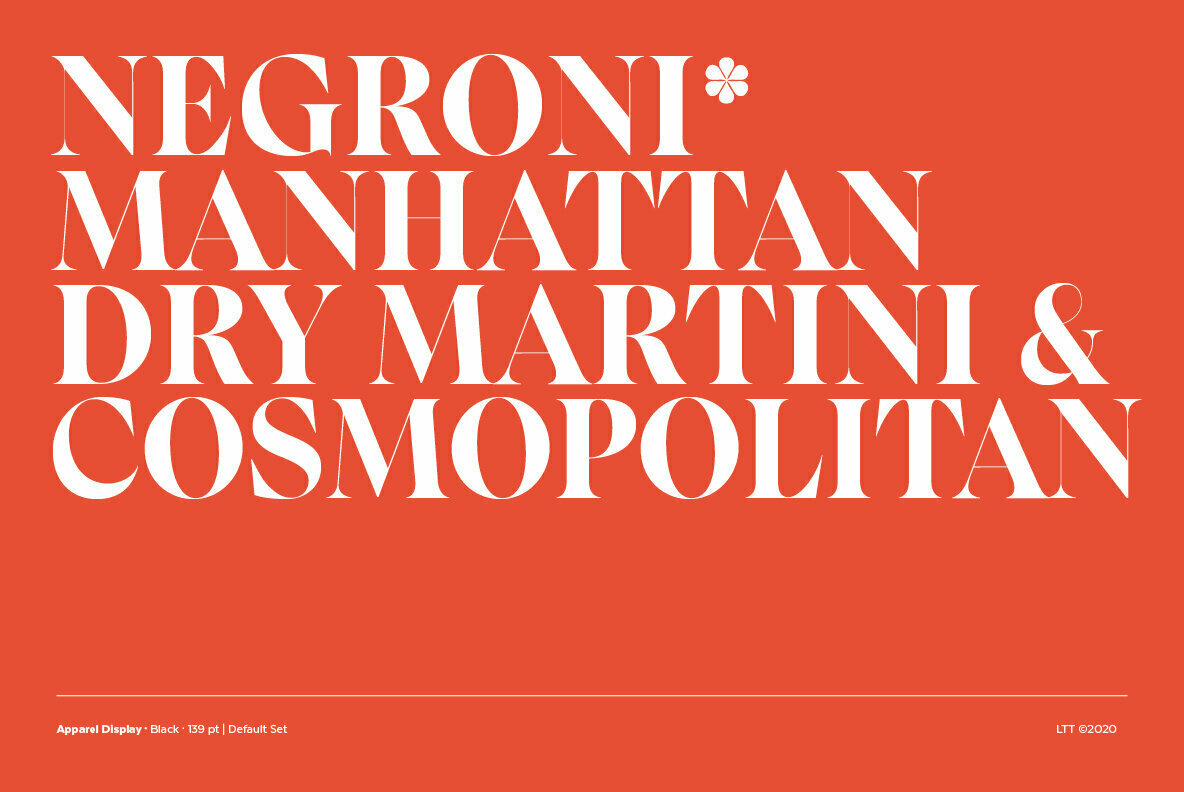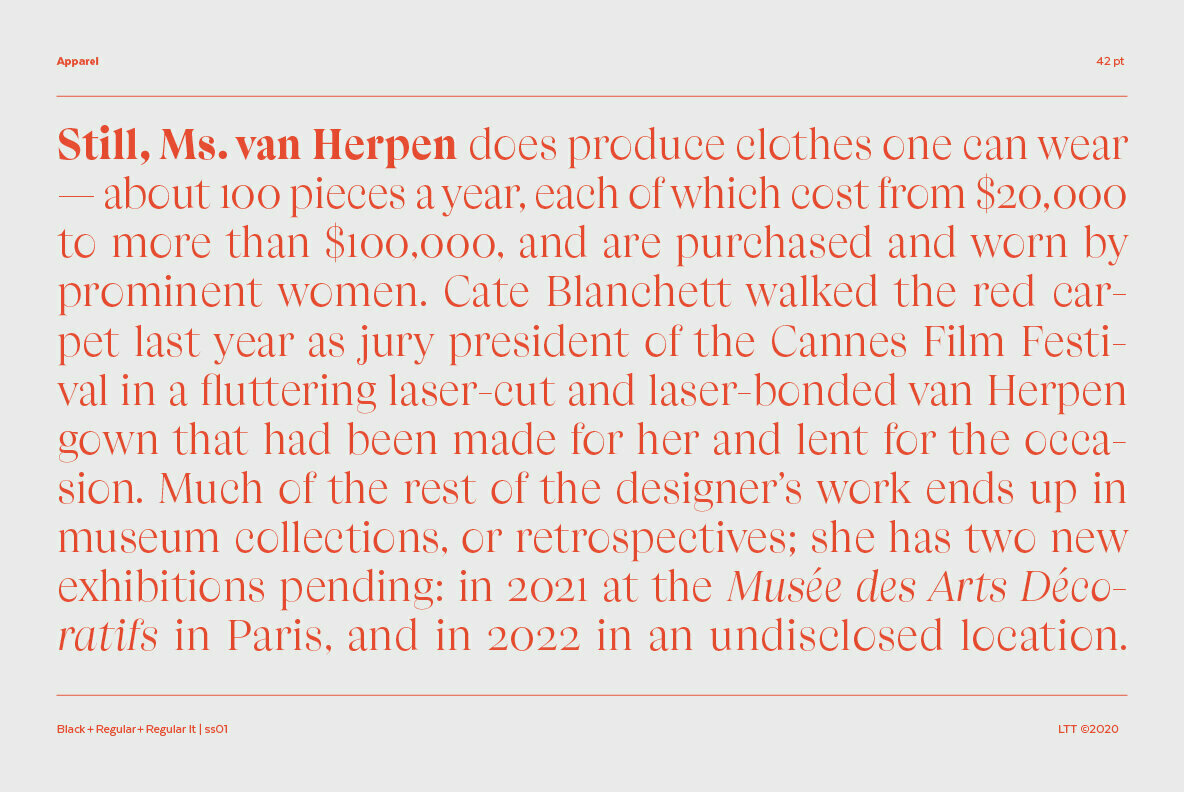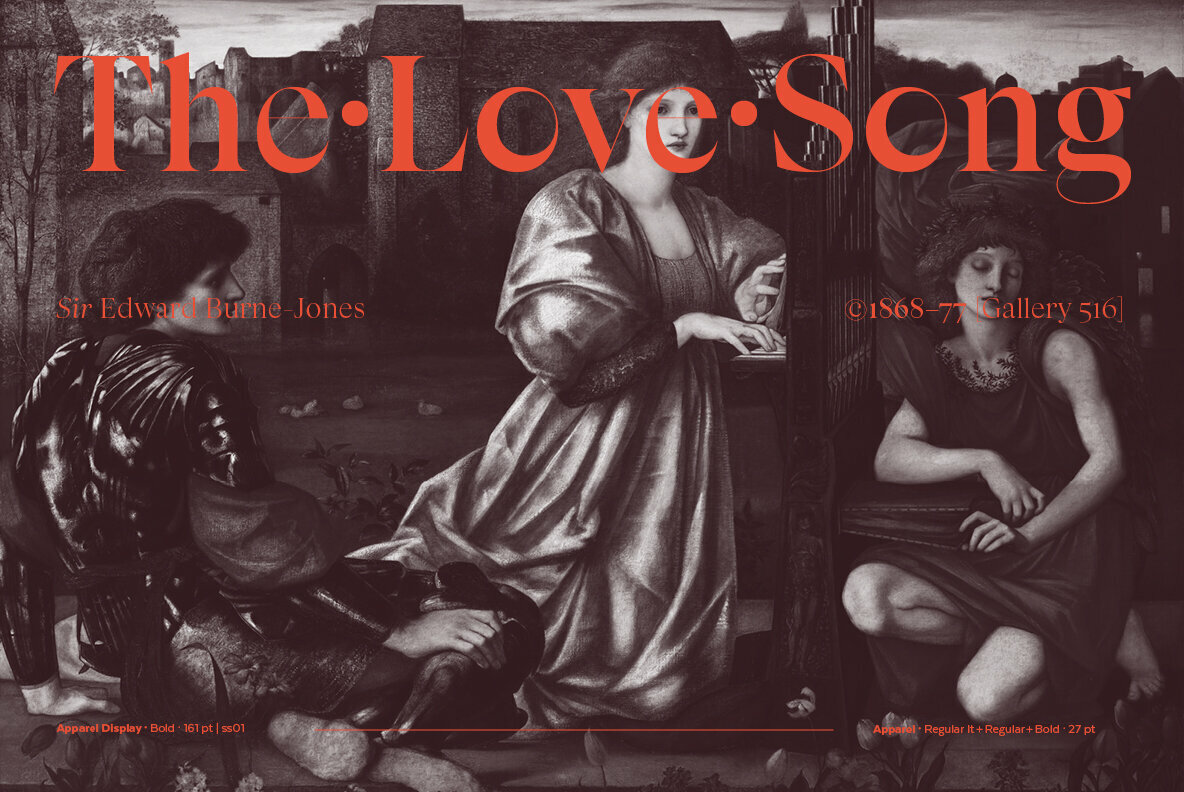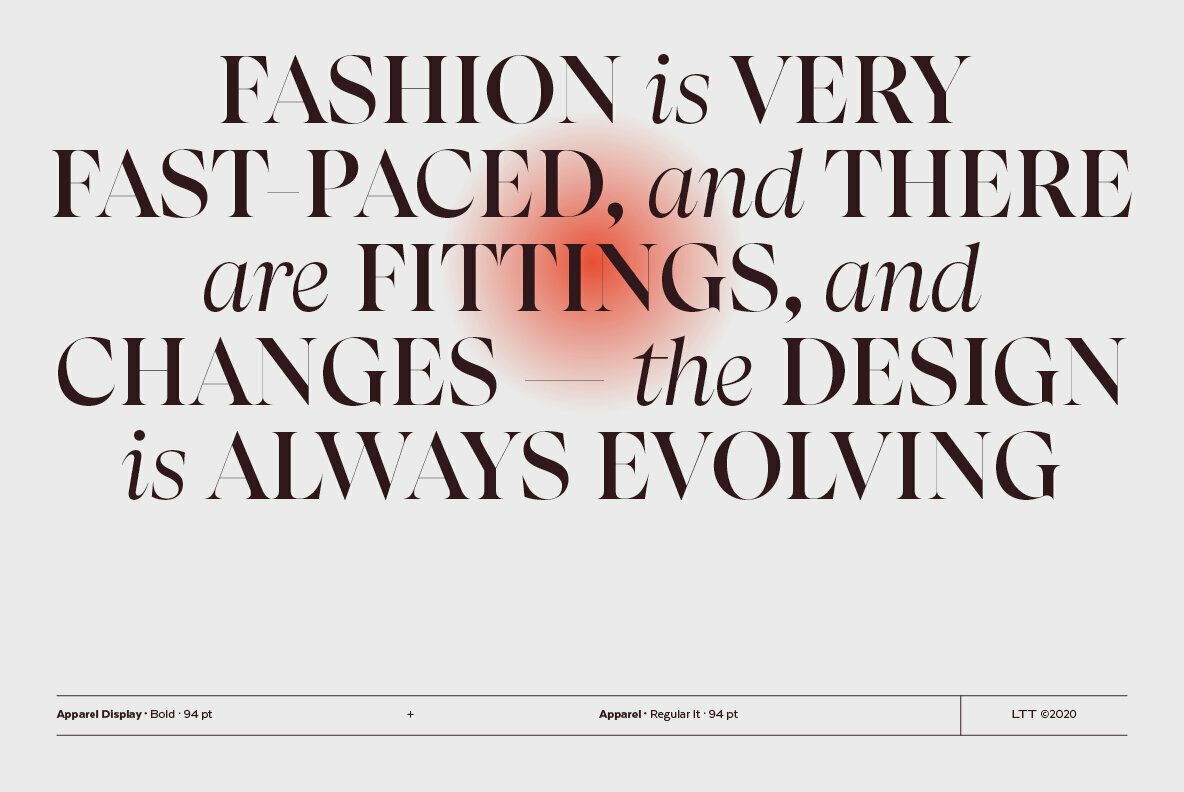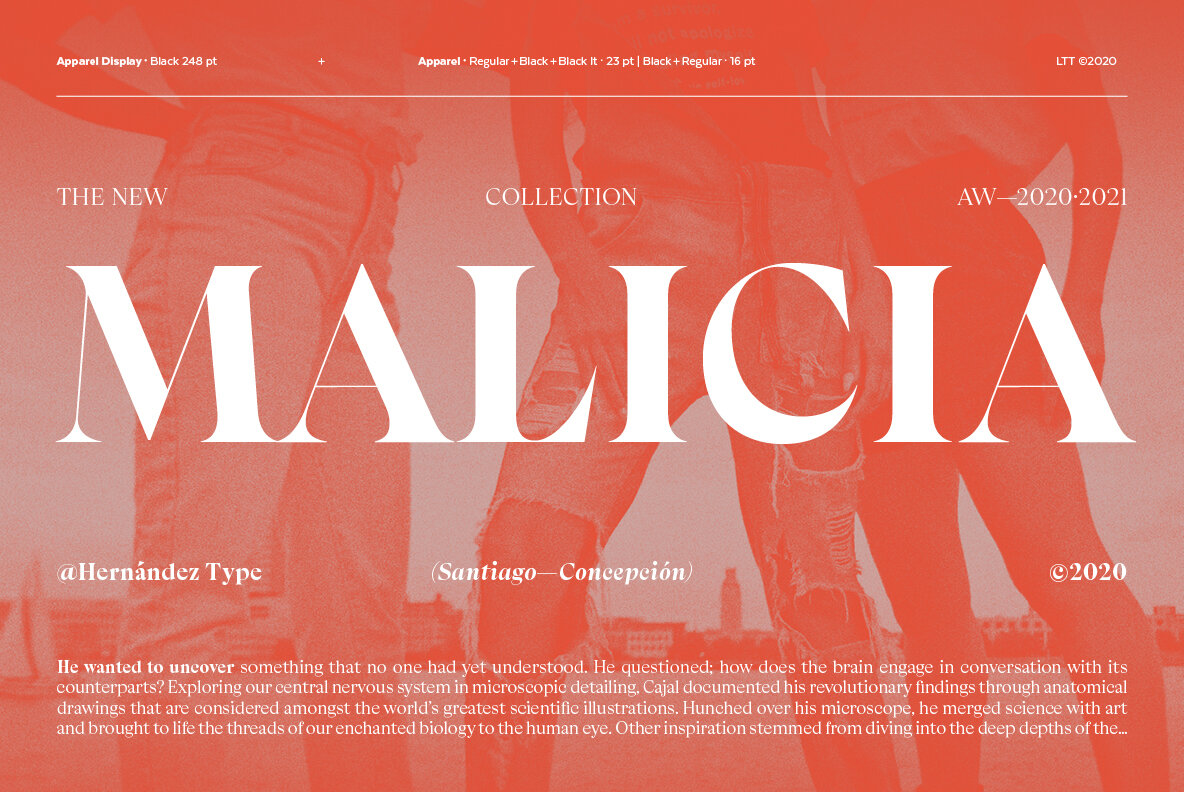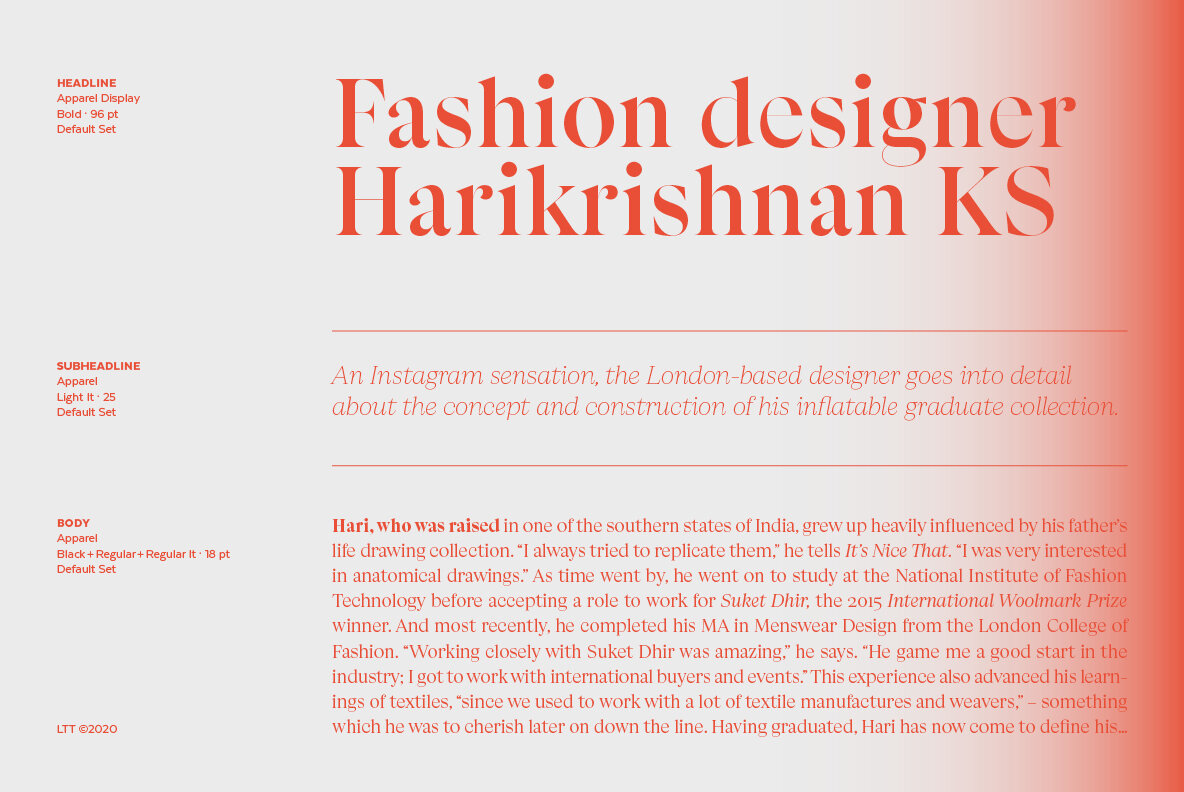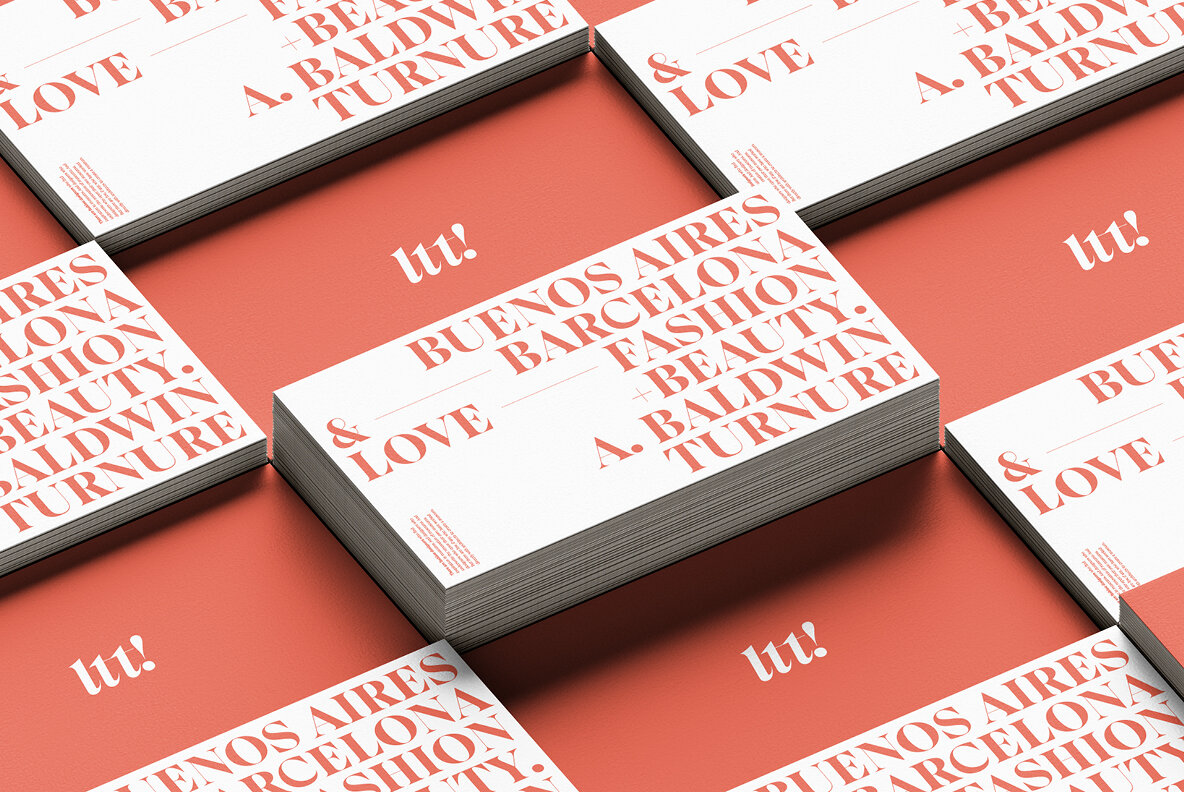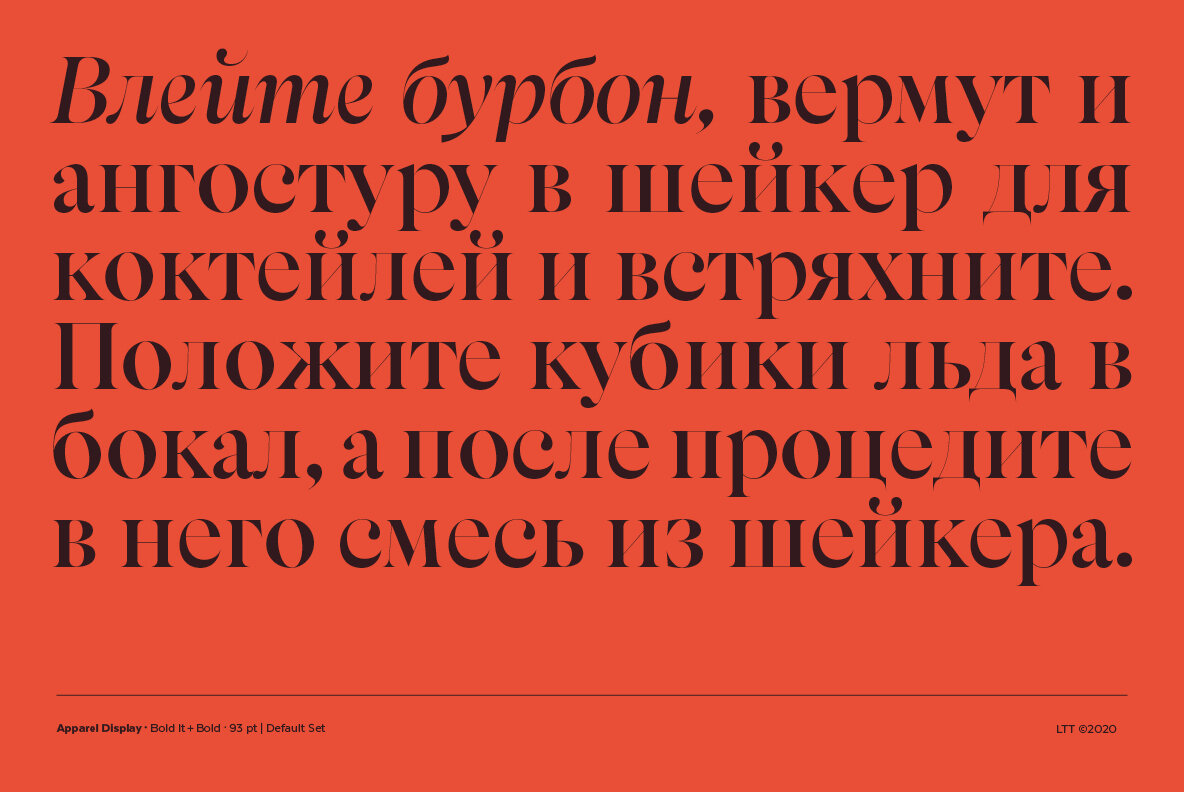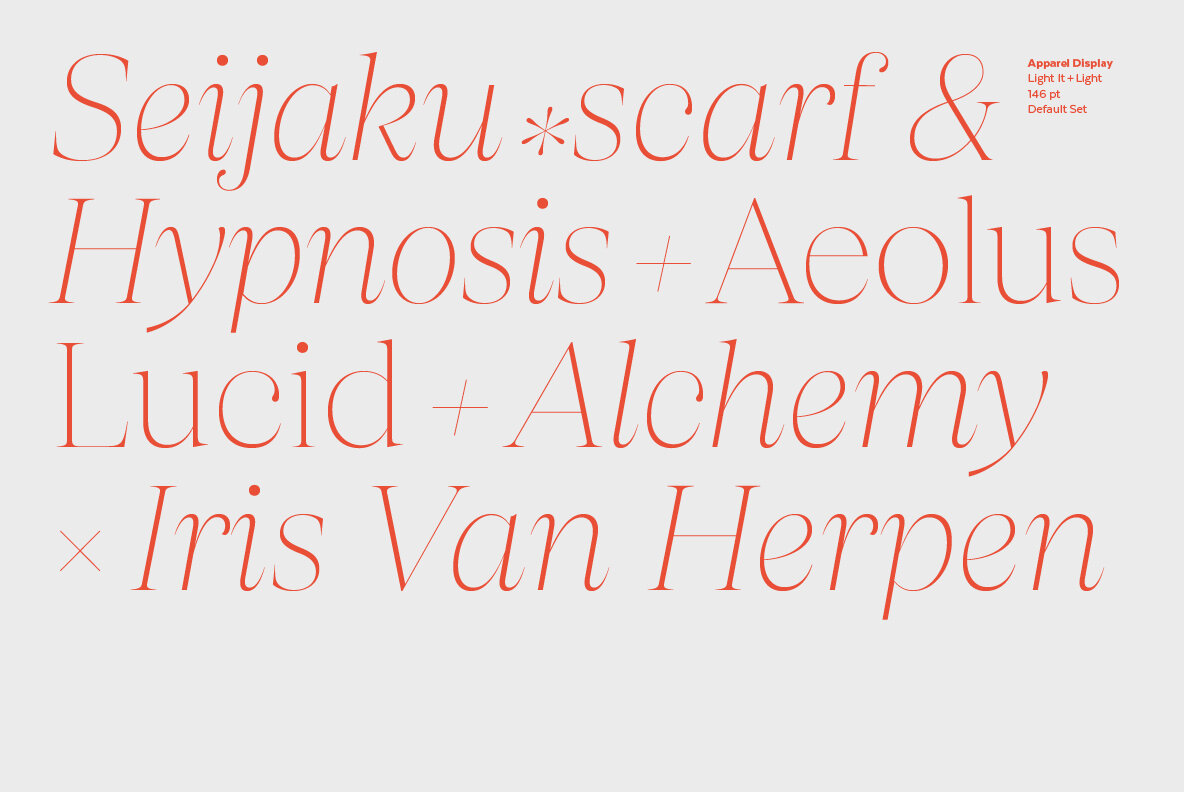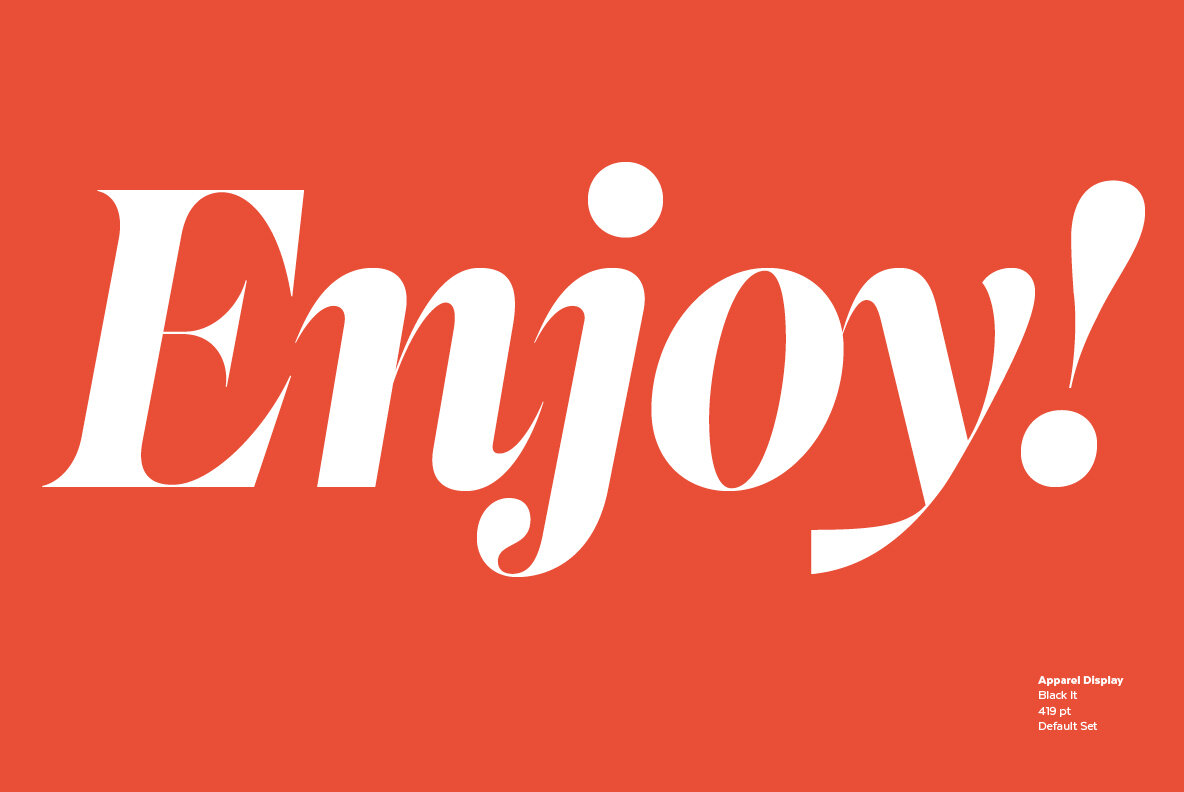
Apparel Font
Inspired by the MacFarland series in the 1912 ATF catalog, Apparel is a typeface that shares similar functional characteristics with Times New Roman and Caslon fonts yet it has its own personality: A great choice for high-impact design.
Apparel is a contemporary, classy and fresh serif typeface with a laid-back attitude that best suits your design needs. Its medium-large x-height makes it ideal for headlines and brand identity design. Apparel also includes a version, with a greater contrast between thick and thin strokes, for use in even larger sizes. The font comes with italic styles which can be used individually or in combination with the upright variant. Moderately slanted italics are also available as OpenType Stylistic Alternates.
Each font style supports more than 200 Latin-based languages, as you would expect from Latinotype fonts. Apparel also includes a basic Cyrillic set, old style & lining figures, fractions and alternates, among other OpenType features.